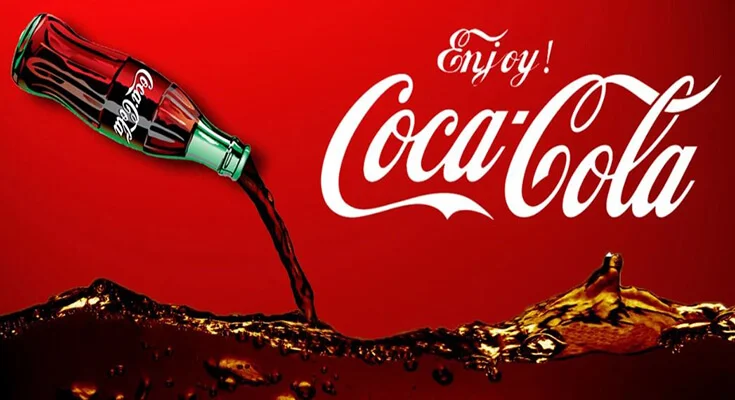
Introducing Coca Cola Font! Coca-Cola is a widely consumed soft drink worldwide. The Coca-Cola Company developed this drink in the late 19th century.
The Coca-Cola logo is another eye-catching feature that grabs everyone’s attention. However, Coca-Cola II is the original font that was used on the Coca-Cola drink logo in 1985.
The Coca-Cola logo was created by Frank Mason Robinson in 1885 and the letter style used for the logo is known as the Spencerian script.
This font’s distinctivеnеss makes it perfect for branding, advеrtising, and dеsign projects. Its simplicity еnsurеs еasy rеadability, еvеn from a distancе.
Whether on a vintage Coke bottle or a modern billboard, the Coca-Cola typeface adds authenticity and charm. Its enduring popularity reflects its effectiveness in conveying the brand’s message.